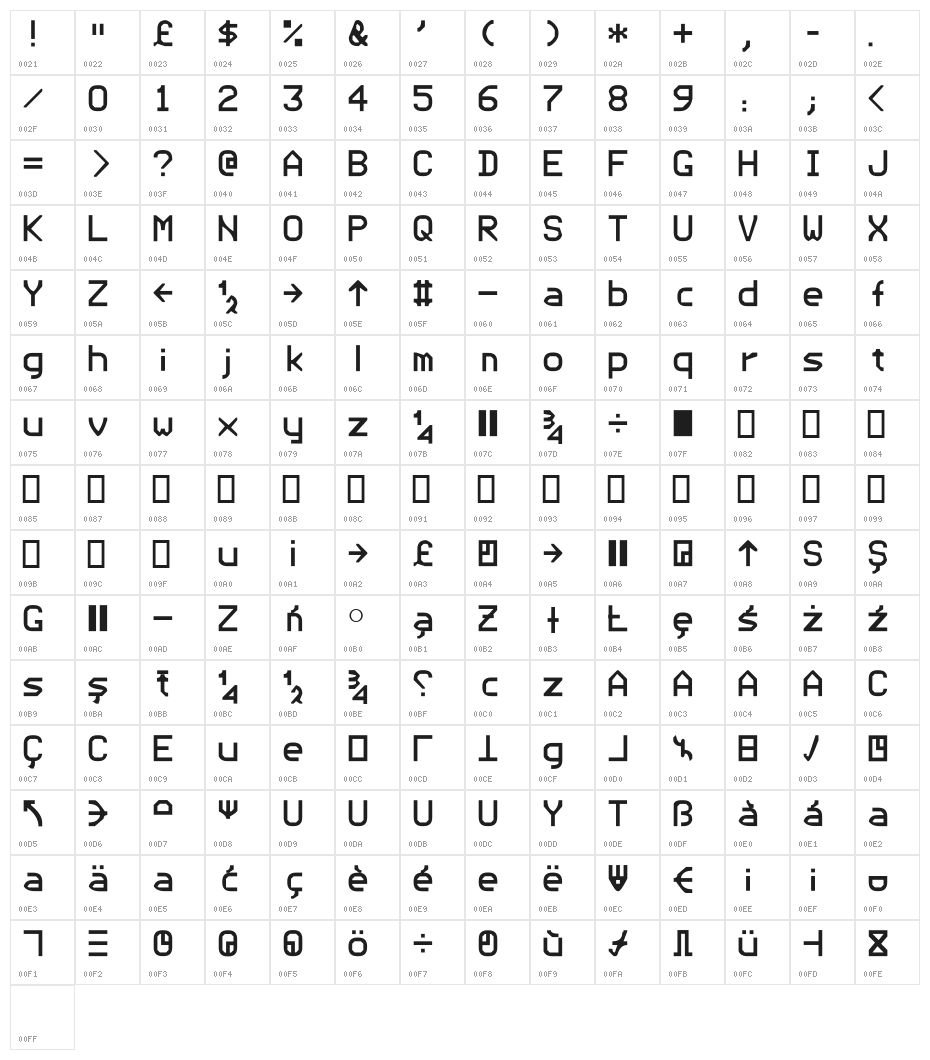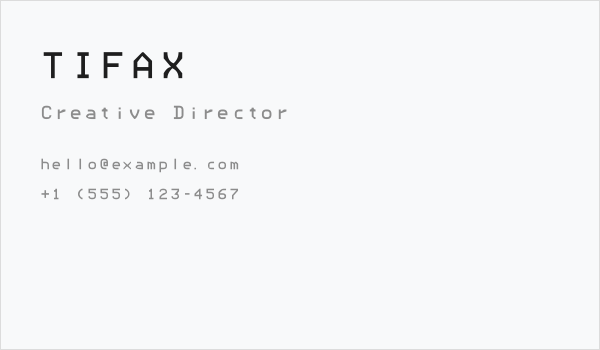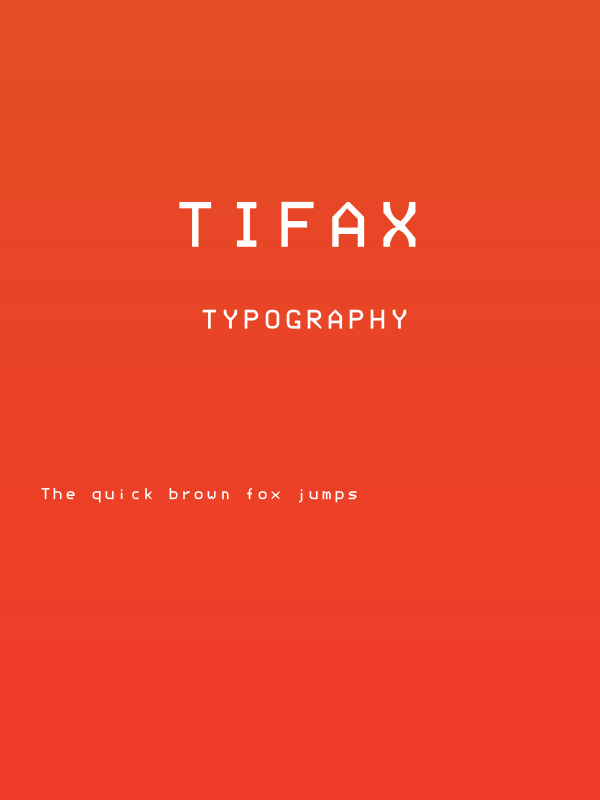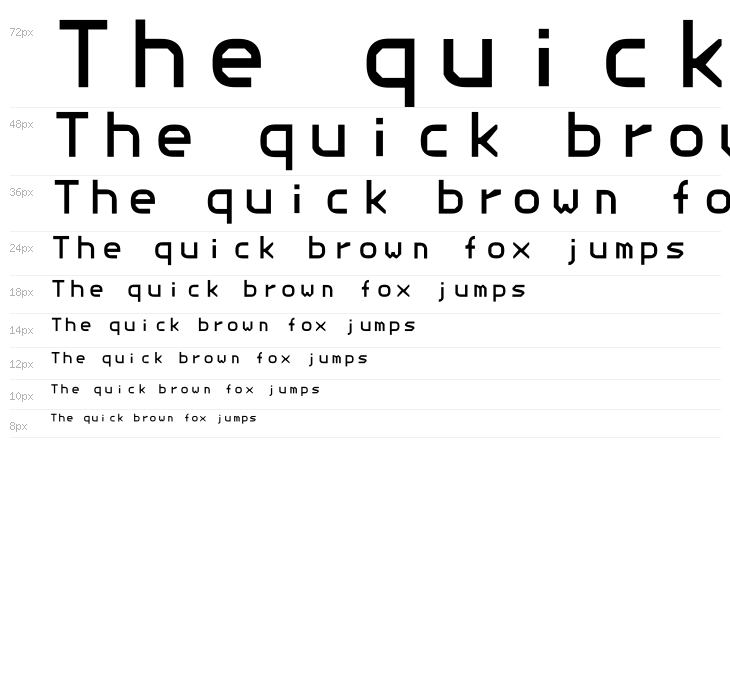
TIFAX Font
TIFAX Description
This font features a modern, geometric design with a monospaced structure. Each character is crafted with precision, showcasing uniformity in width and height, which is characteristic of monospaced fonts. The uppercase letters are bold and assertive, while the lowercase letters maintain a consistent style that complements the overall aesthetic. Numbers and special characters are designed with the same attention to detail, ensuring readability and balance across all elements. The font's clean lines and minimalistic approach make it suitable for digital displays and coding environments.
Use CaseCoding, Digital displays, Technical documentation
Proposed ProjectsIdeal for coding, digital displays, technical documentation, and minimalist design projects.